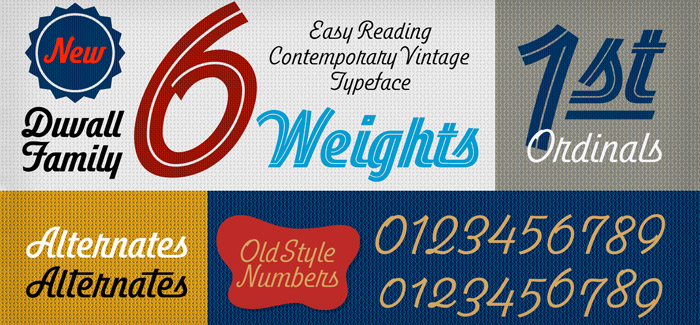
Duvall font
Duvall font by John Moore (John Moore Type Foundry) is a highly decorative and picturesque cursive script family consisting of 8 members: five weights plus inline style and two sets of ornamental goodies. Duvall font is inspired by the original Edward J. Duvall’s lettering. Mr. Duvall was a teacher in lettering, famous for his book “Modern Sign Painting” in the late 40s and early 50s.
Duvall font family features low contrast and due to its decorative nature is not intended for body text. Although, thanks to the typeface’s clean shapes it maintains excellent legibility at small sizes. Duvall font is ideal for packaging, signage, banners, branding and graphic design in general and can be combined harmonically with your favourite Sans Serif typefaces.
Duvall font family comes in five weights, from Duvall 1 (the lightest version), to Duvall 5 (the boldest one). Duvall Style font is a decorative variation with Inline, ideal for set in colour layers combined with Duvall 5. Available are two extra fonts: Duvall Ribbons, a dingbats font with which you can create interesting headlines with the taste of the advertising of the 50s. Duvall FunWords contains catchwords in English, French and Spanish. OpenType features like alternate characters, old style numbers, ordinal, superior and inferior numbers make Duvall font family ideal for composition. There is a complete set of glyphs for Eastern and Western European languages.
John Moore has won many awards at the Latin American Biennial of Typography “Tipos Latinos”. His work has been reviewed in many publications on typography and editorial design also in videos, magazines, books, web sites, blogs and exhibitions around the world. John Moore Type Foundry specializes in creating fonts, since 1974, to meet the needs of creativity, novelty, originality and quality. Check their distinctive Maracay font, JMTF Robin font, and Virgin font.